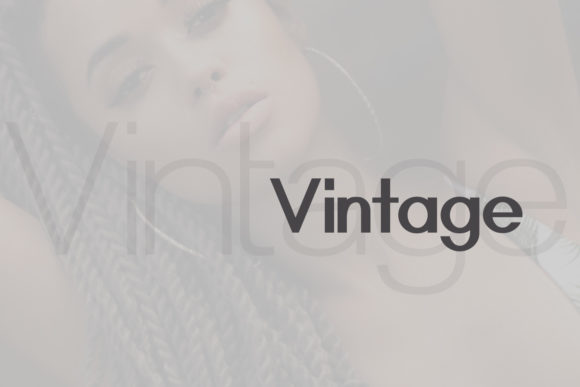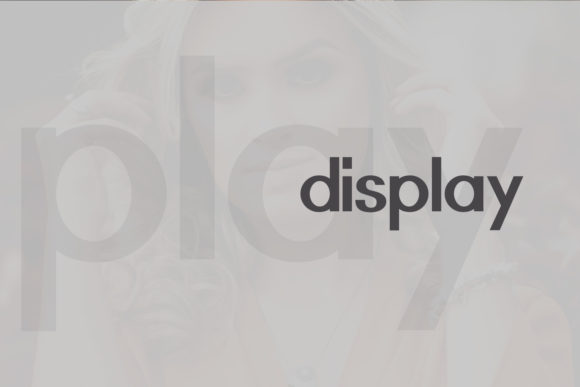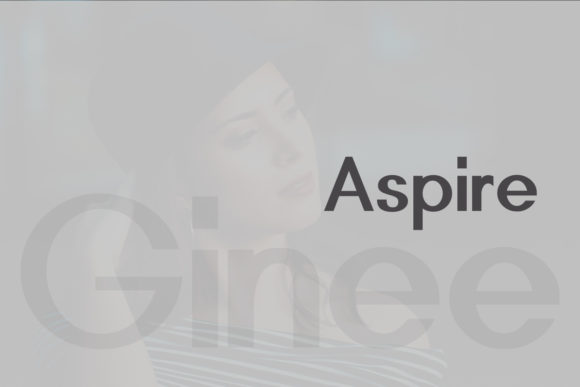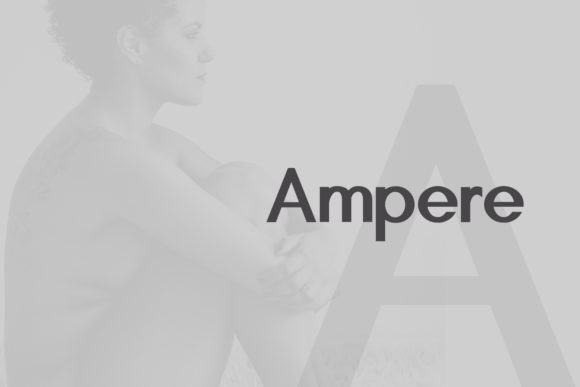
Ampere Font: Elevate Your Designs with a Modern Sans Serif
In the world of typography, fonts play a crucial role in conveying messages, expressing emotions, and creating visual identities. For designers and crafters, selecting the right font can make all the difference in their projects. One modern sans serif font that has gained attention for its versatility and aesthetic appeal is Ampere. In this article, we’ll explore the features, benefits, and uses of Ampere Font, and why it’s an excellent addition to your typography collection.
What is Ampere Font?
Ampere is a modern sans serif font designed to make a statement. Its clean lines, geometric shapes, and balanced proportions make it an excellent choice for a wide range of applications. Whether you’re working on a busy background or using it as a standalone headline, Ampere Font is sure to stand out. Its modern design ensures that your text looks fresh, sleek, and professional.
Key Features of Ampere Font
• Modern Sans Serif Design: Ampere’s sans serif design gives it a contemporary look that’s perfect for modern designs.
• High Versatility: This font can be used in various contexts, from digital media to print materials.
• Excellent Legibility: Ampere’s clear and balanced design ensures that your text is easy to read, even at small sizes.
• Busy Background Friendly: Ampere’s robust design allows it to shine even on complex or busy backgrounds.
Benefits of Using Ampere Font
So, why should you choose Ampere Font for your projects? Here are some benefits that make it an attractive option:
• Enhance Your Brand’s Visual Identity: Ampere’s modern design can help give your brand a fresh and contemporary look.
• Improve Readability: Its clear and legible design ensures that your message is conveyed effectively.
• Increase Versatility: Ampere’s adaptability makes it suitable for various applications, from headings to body text.
• Save Time and Effort: With Ampere Font, you can achieve professional-looking results without spending hours on typography.
Who Can Benefit from Ampere Font?
Ampere Font is an excellent choice for various professionals and creatives, including:
• Graphic Designers: Add a modern touch to your designs and make them stand out.
• Digital Marketers: Enhance your campaigns with a professional and contemporary look.
• Crafters and Makers: Use Ampere Font to create visually appealing titles, headings, and labels.
• Web Designers: Improve your website’s typography and user experience with Ampere Font.
How to Use Ampere Font Effectively
To get the most out of Ampere Font, consider the following tips:
• Pair it with Complementary Fonts: Combine Ampere with serif or script fonts to create visual interest.
• Experiment with Sizes and Colors: Play with different sizes and colors to create a hierarchy of information.
• Use it Consistently: Establish a consistent typography style throughout your design to build recognition.
Font Name Ampere Font
Author Design Stag
Ampere Font is a versatile and modern sans serif font that’s perfect for designers and crafters looking to elevate their projects. Its clean design, excellent legibility, and adaptability make it an excellent choice for various applications. Whether you’re working on a digital project or a print material, Ampere Font is sure to make a statement. With its numerous benefits and uses, it’s an excellent addition to your typography collection.